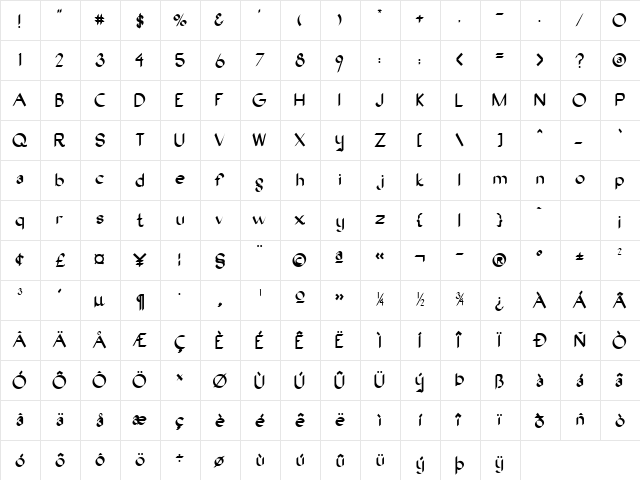
Nival Normal
Design Context for Nival Typeface
Nival is a composed and adaptable typeface that performs quietly and consistently across a wide range of design contexts.